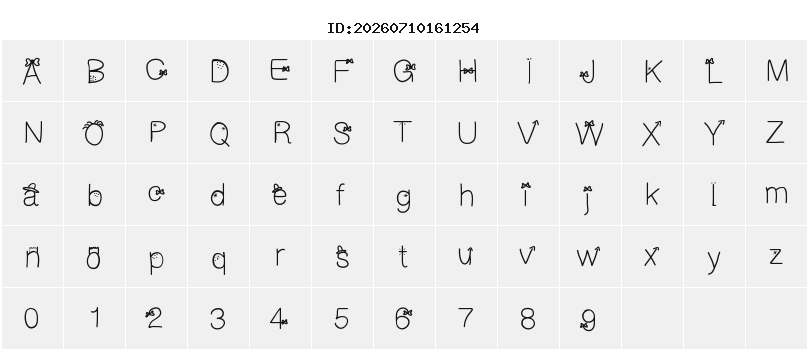
galFont Preview
• Font Name: galFont
• Font ID: Gaelleing:galFont
• Full Font Name: galFont
• PostScript Name: galFont
• Character Count: 175
About galFont.ttf
galFont.ttf is a modern, elegant sans-serif font designed for ultimate readability and visual harmony. Perfect for branding, headlines, web design, and print materials.